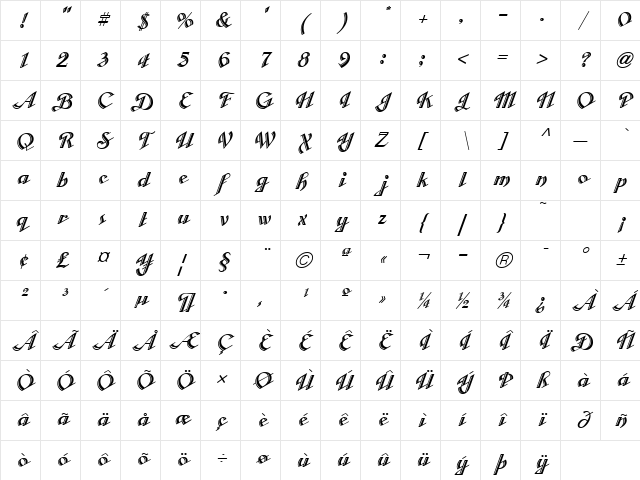
Cabarga Curs ICG Alt Regular Free Font
Cabarga Curs ICG Alt Regular
Design Context for Cabarga Curs ICG Alt
Cabarga Curs ICG Alt is a composed and adaptable typeface that performs quietly and consistently across a wide range of design contexts.